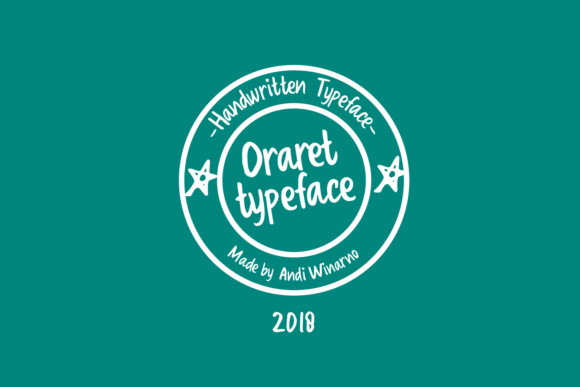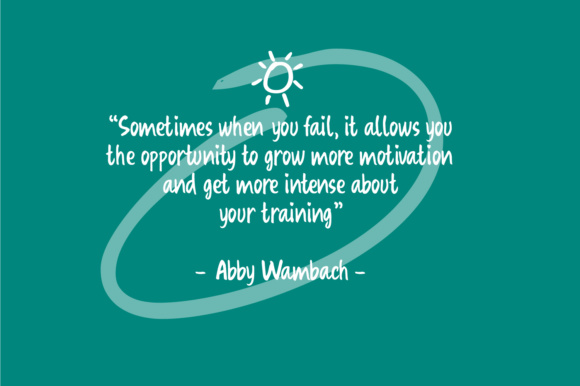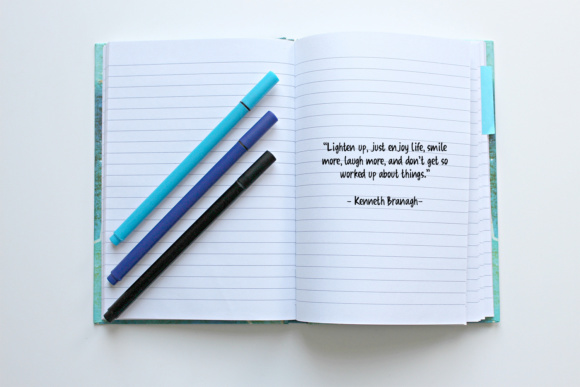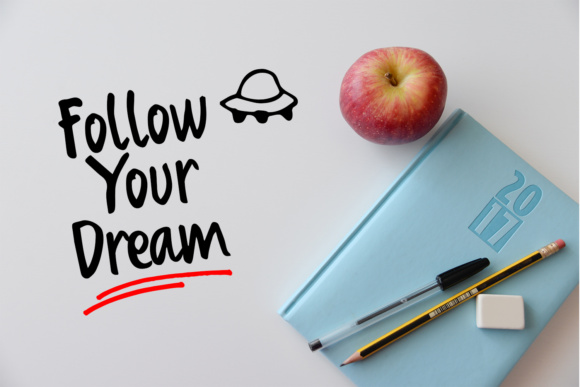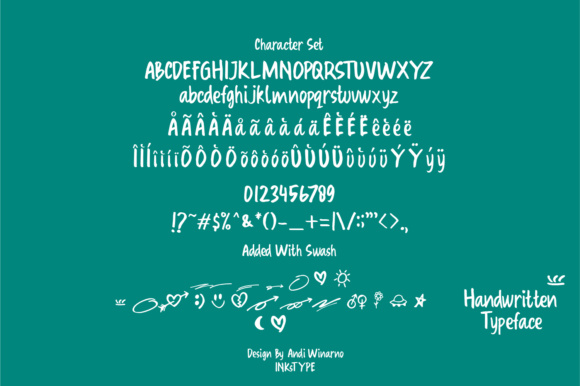
Oraret Font
About Oraret Font
Oraret is a fun, handwritten font with a throwback vibe! This handwritten sans serif font includes cute, out-of-this-word extras so you can craft typographic projects that have that ’90s look to them.